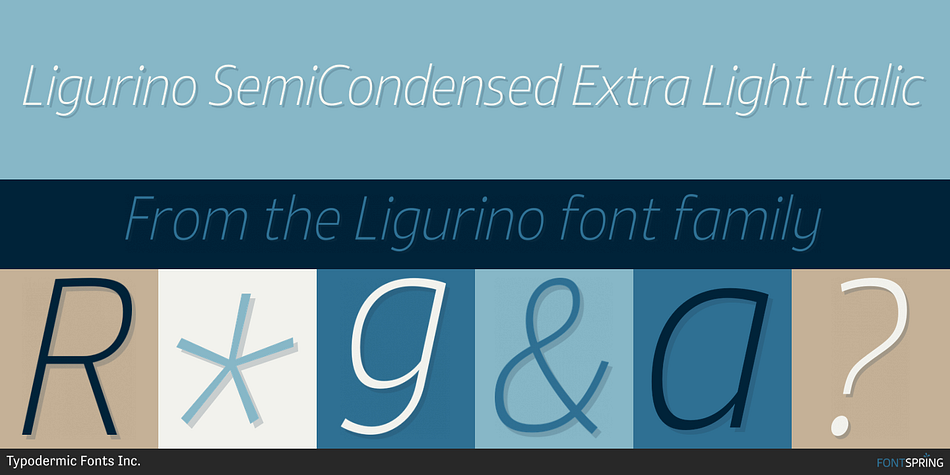
Ligurino SemiCondensed Extra Light Italic
Ligurino is a display sans and sans serif font family. This typeface has thirty-seven styles and was published by Typodermic Fonts Inc.
Introducing Ligurino, the sleek and sophisticated sans-serif typeface that is the epitome of clean design. With its gentle yet elegant appearance, Ligurino is sure to elevate any project it graces.
Ligurino’s clean style is its greatest asset, boasting a simple and minimalist aesthetic that maximizes readability. Whether you’re designing a logo or crafting a body of text, Ligurino’s legibility will ensure your message is communicated loud and clear.
What’s more, Ligurino comes with an OpenType “stylistic alternatives” function, which allows you to access an austere “Q” for added versatility. Plus, with three widths, six weights, italics, and an all-caps outline style, you have complete creative control over your project.
Ligurino’s contemporary design is the perfect blend of form and function. Its modern yet timeless appearance is sure to make a lasting impression on your audience. So why settle for anything less? Choose Ligurino and let your design stand out with its refined and polished look.